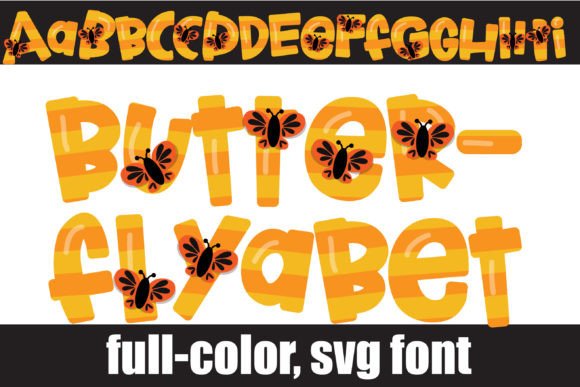
Introducing Butterflyabet Warm Font: A Vibrant and Colorful Typography Experience
In the world of typography, fonts play a crucial role in conveying messages, expressing emotions, and adding personality to designs. Among the numerous font styles available, the Butterflyabet Warm Font stands out as a unique and eye-catching option. This full-color font features a striped design with butterflies throughout, making it perfect for titles, displays, posters, and more.
Key Features of Butterflyabet Warm Font
- Striped Font with Butterflies: The font features a beautiful striped design with butterflies throughout, adding a touch of elegance and sophistication to your designs.
- Alt Case with Additional Colors: The font comes with an alternate case that offers additional colors, which can be accessed through your system’s character map.
- Scalability: As a vector-based font, it can be scaled to any size without losing quality.
The Benefits of Using SVG Fonts
SVG fonts, like the Butterflyabet Warm Font, offer several benefits:
- Scalability: SVG fonts are vector-based, making them scalable to any size without losing quality.
- Color Range: SVG fonts offer a full range of colors, allowing you to create vibrant and colorful designs.
- Personality: SVG fonts add a touch of personality to your designs, making them perfect for creative projects.
Exploring Design Possibilities with Butterflyabet Warm Font
The Butterflyabet Warm Font offers endless design possibilities:
- Simple Text Logos: Create simple yet elegant text logos using the font’s various colors and styles.
- Complex Illustrations: Use the font to create complex illustrations, such as posters, flyers, and brochures.
- Social Media Graphics: Design engaging social media graphics, like Facebook posts and Instagram stories, using the font’s vibrant colors.
| Font Name | Butterflyabet Warm Font |
| Author | Illustration Ink |
The Butterflyabet Warm Font is a unique and vibrant typography experience that can elevate your designs to the next level. With its striped font, butterflies, and additional colors, this font is perfect for titles, displays, posters, and more. By understanding its compatibility, installation process, and design possibilities, you can unlock the full potential of this beautiful font and add a touch of personality to your designs.